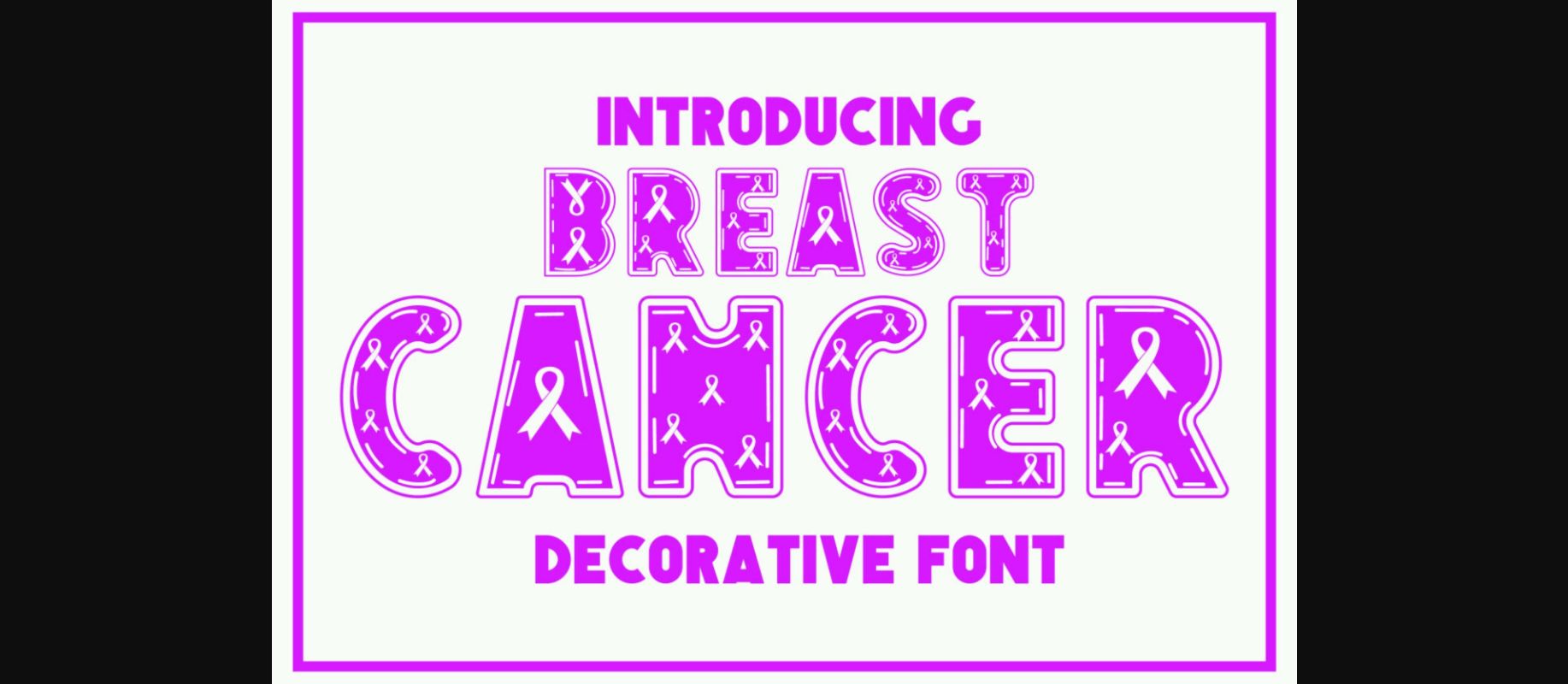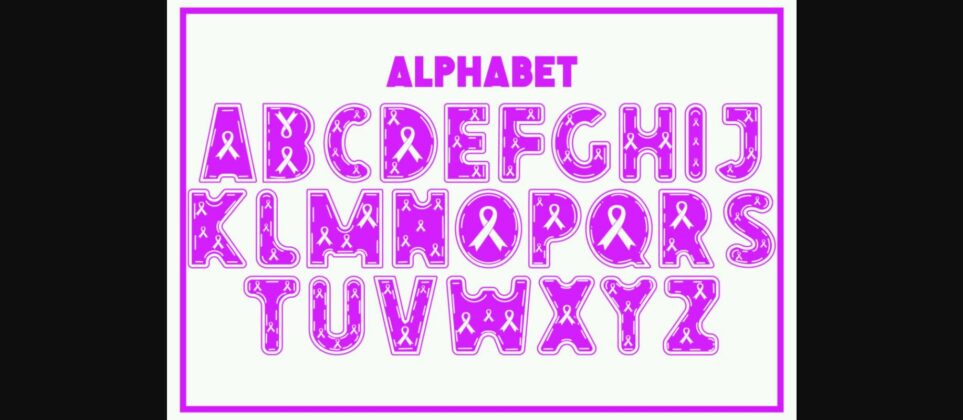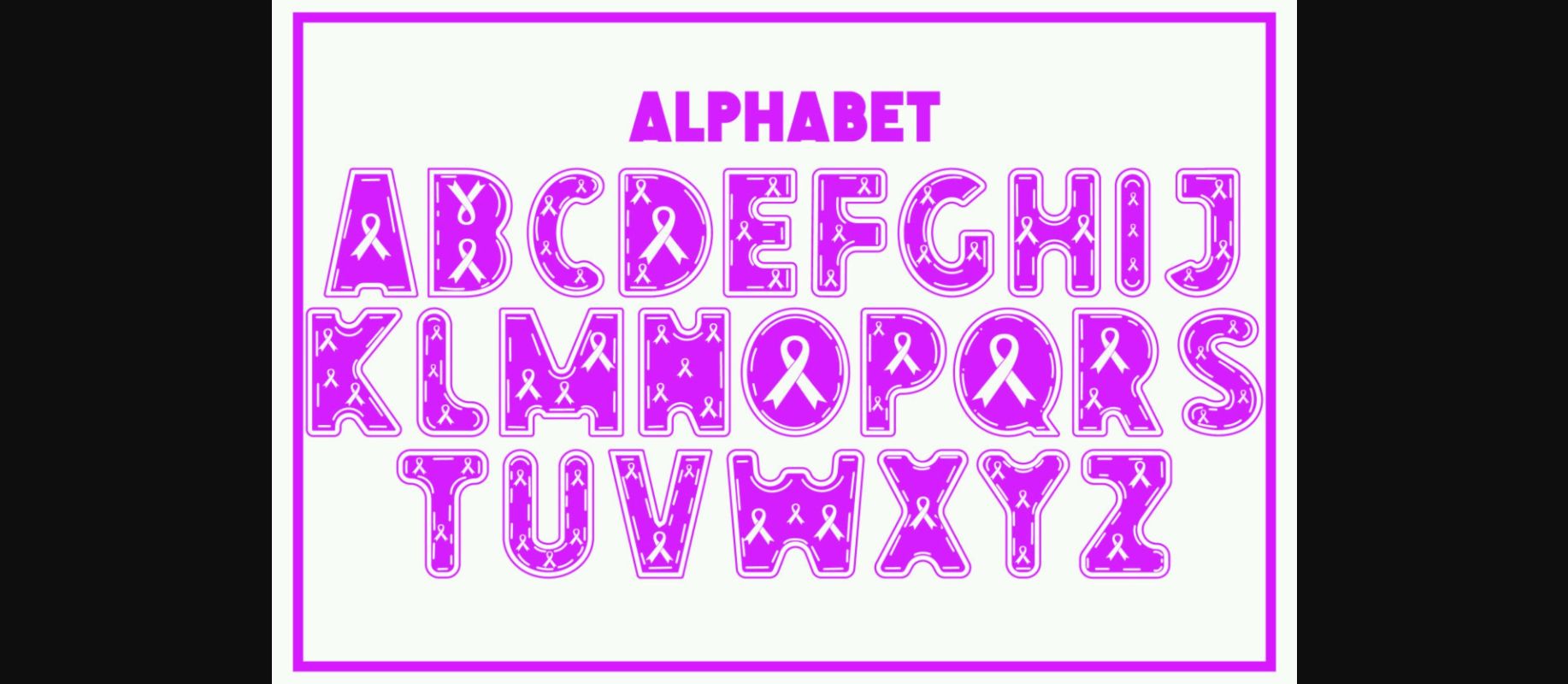
About Breast Cancer Font
Breast Cancer is a chic and assertive decorative font. Whimsical and a bit quirky, this font will enhance each of your designs. Add it confidently to your projects, and you will love the results.